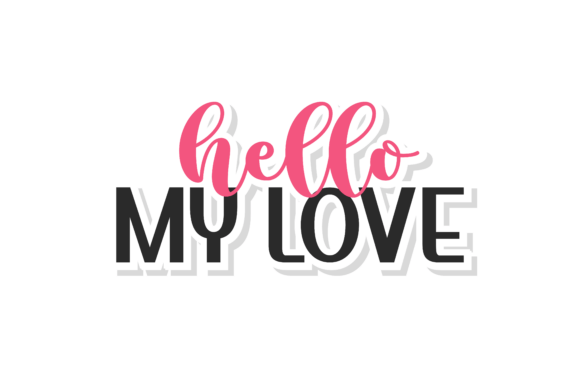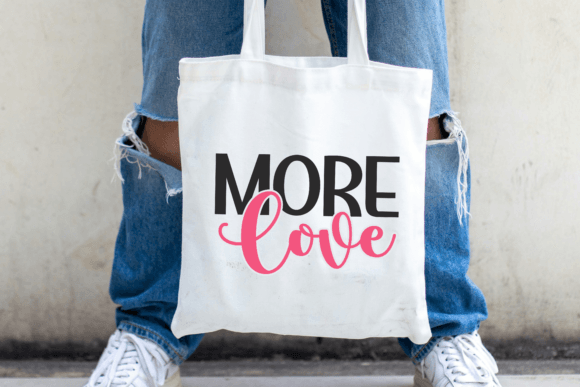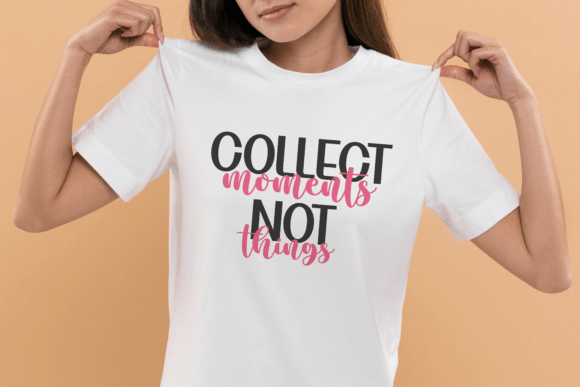
Boldish Font
Bolsidh is a mix of a pretty, handwritten script and bold, clean letters. The script is smooth and flowing, with loops and curves that make it look elegant and friendly. It’s great for romantic or fun designs like invitations and logos.The bold letters are simple and strong, adding balance to the soft script. This combination makes the font perfect for projects that need both a personal and modern touch, like product labels, social media posts, or special event designs.